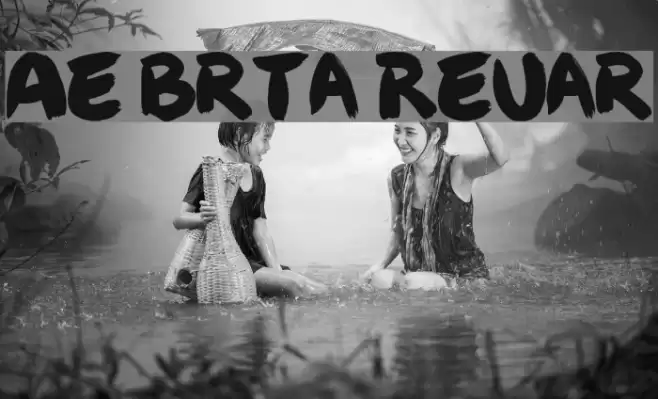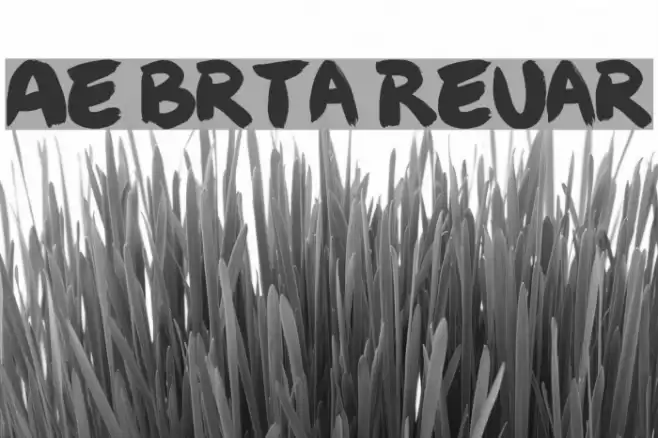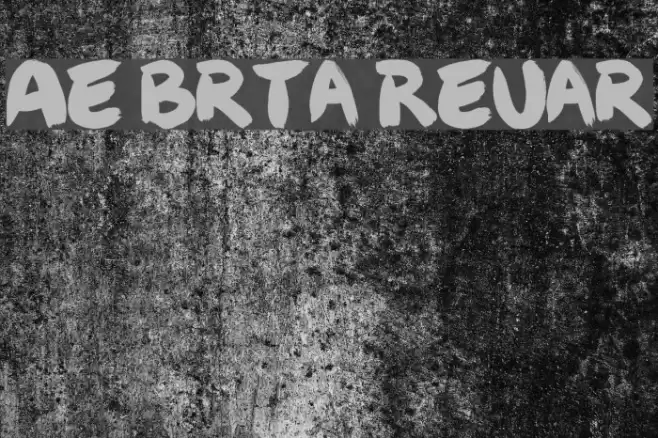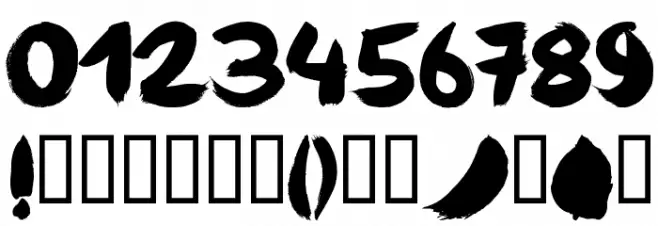
Angel Brotxa Regular Font
Angel Brotxa Regular Description
This font features a bold and expressive brush style, characterized by its dynamic and energetic strokes. The letters have a hand-painted appearance, with irregular edges and varying thickness that add a sense of movement and creativity. The uppercase and lowercase letters maintain a consistent style, while the numbers and special characters complement the overall aesthetic. The font's artistic flair makes it suitable for projects that require a strong visual impact.
A bold, brush-style font with dynamic and expressive strokes from Script fonts.
- Proposed Projects: Ideal for posters, branding, album covers, and artistic projects that require a bold statement.
- Contrast: High